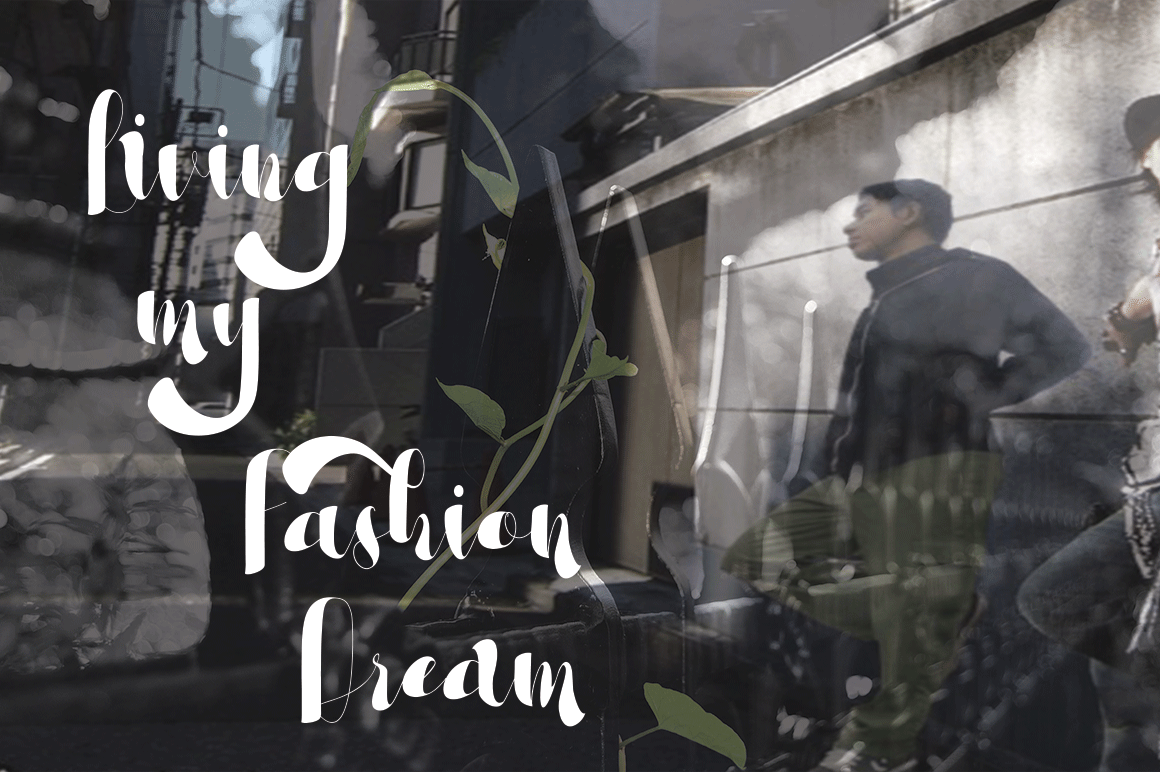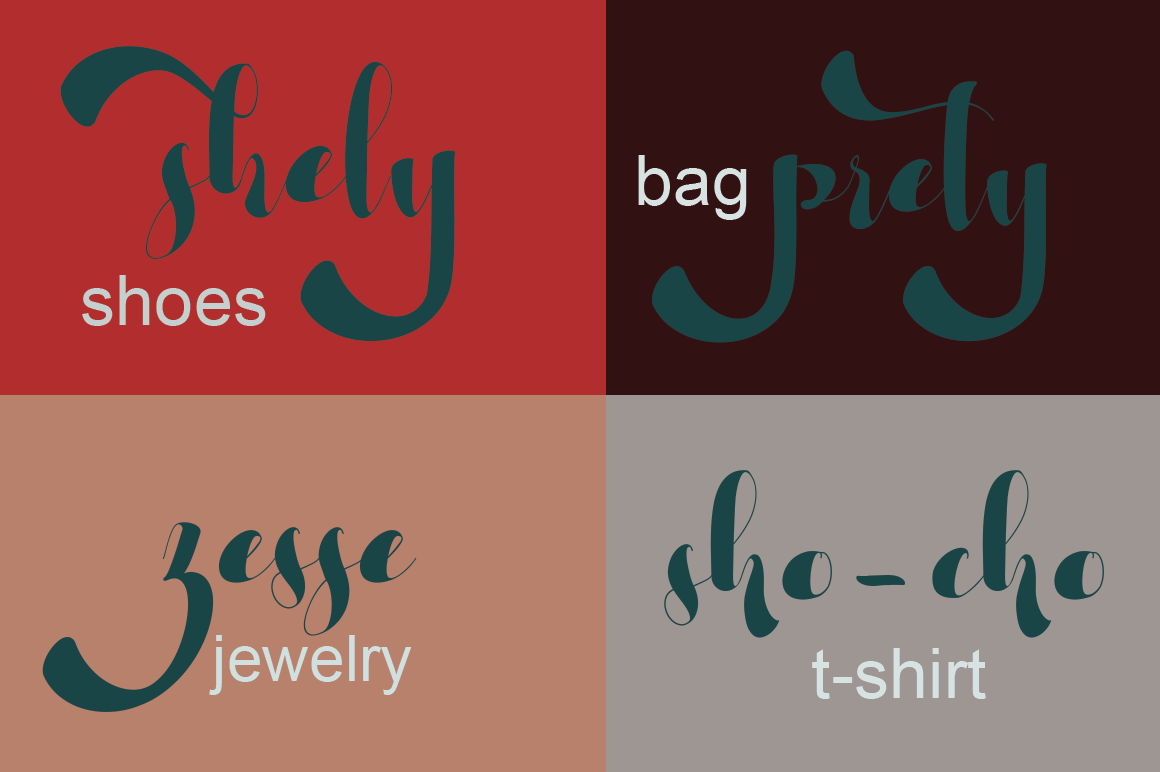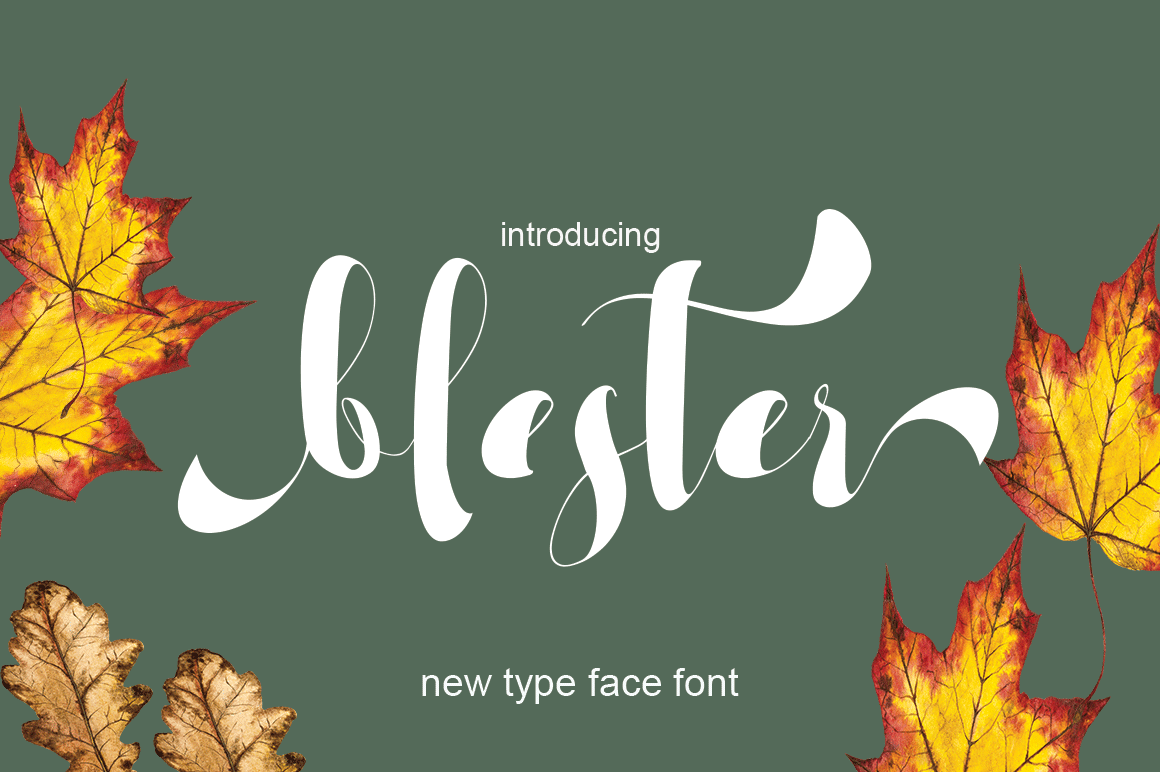
Carrington Calligraphy Font
Carrington is a brush script font with a dynamic and energetic style.It can used for various purposes such as titles, signatures, logotypes,t-shirt designs, letterheads, signage’s, labels, newsletters, posters, badges, and every other design which needs an unique, striking font.